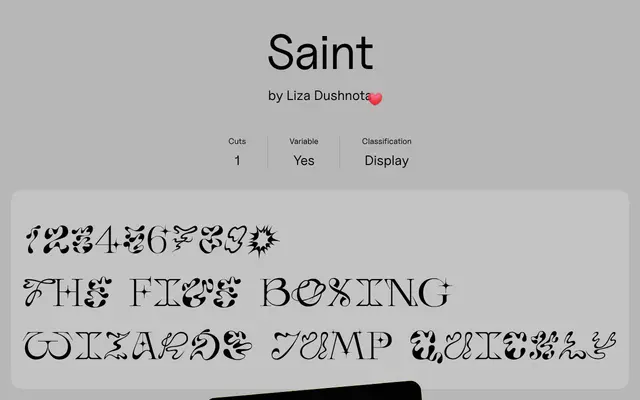
Saint
A free variable display typeface by Liza Dushnota, offered as a single cut for commercial and personal use.
Released through Uncut, Saint is a variable display font designed by Liza Dushnota. It ships as a single variable cut, making it flexible for headline and decorative applications without the overhead of multiple static files. Licensing is unspecified beyond a general free-use declaration, so commercial users are advised to confirm terms directly with the designer.
Classified as Display by the foundry; a single-cut variable font intended for headline and decorative use rather than body text.